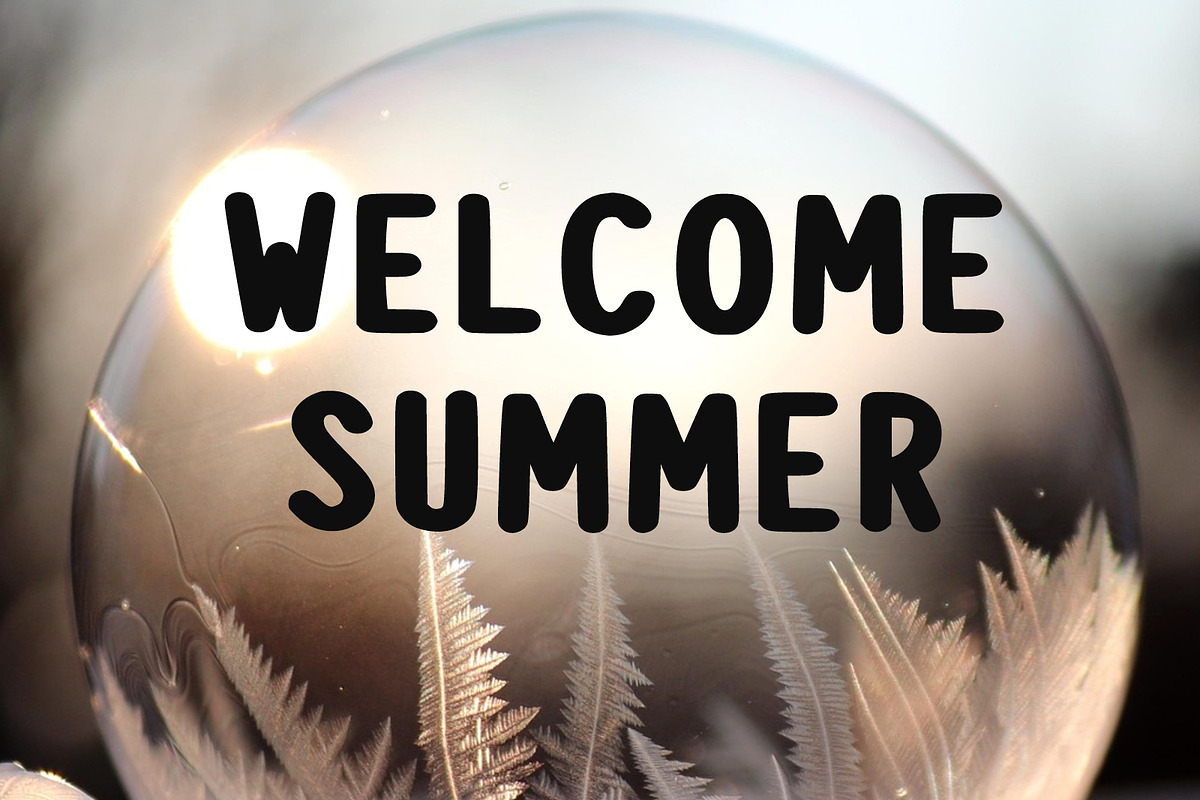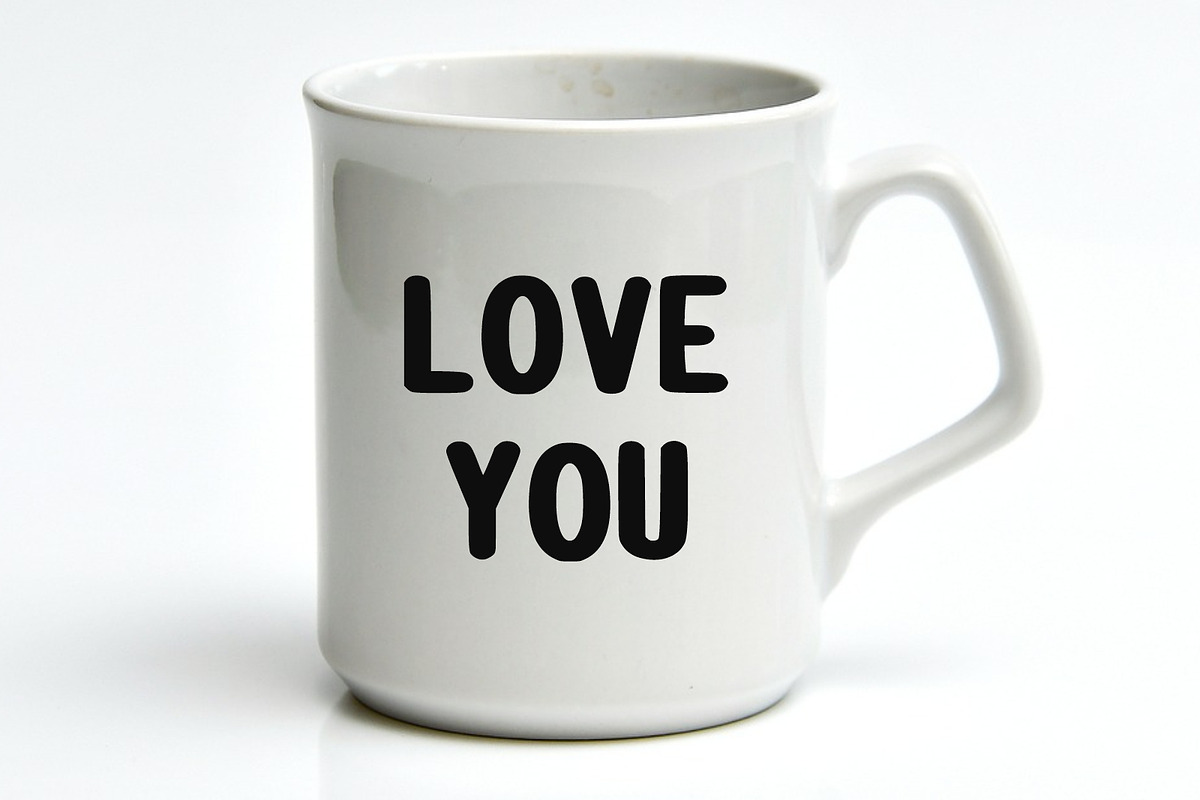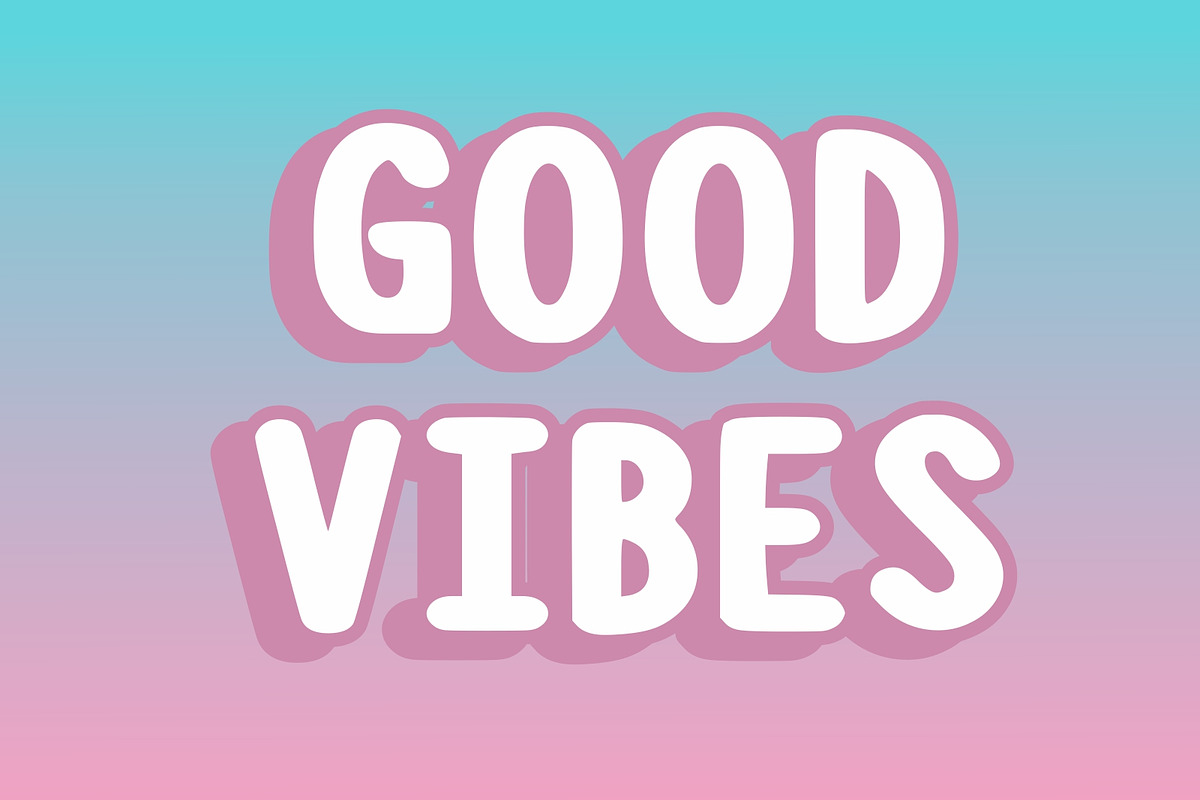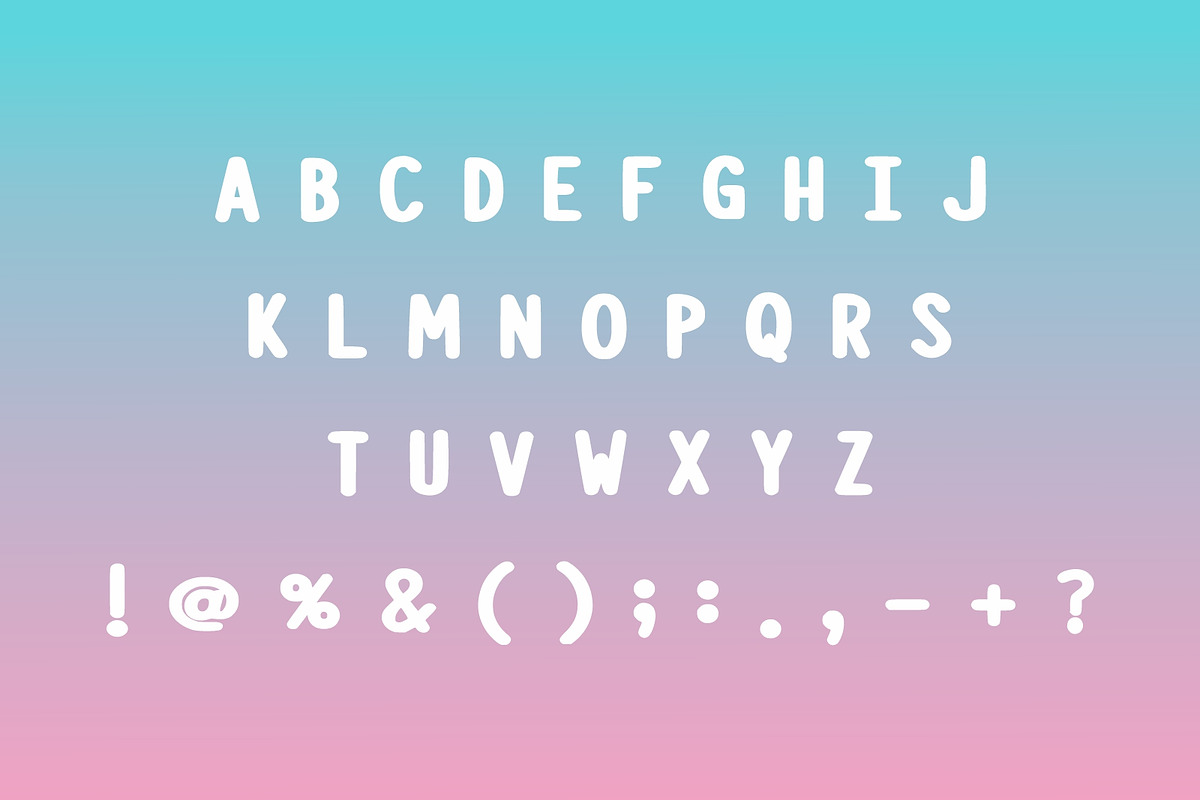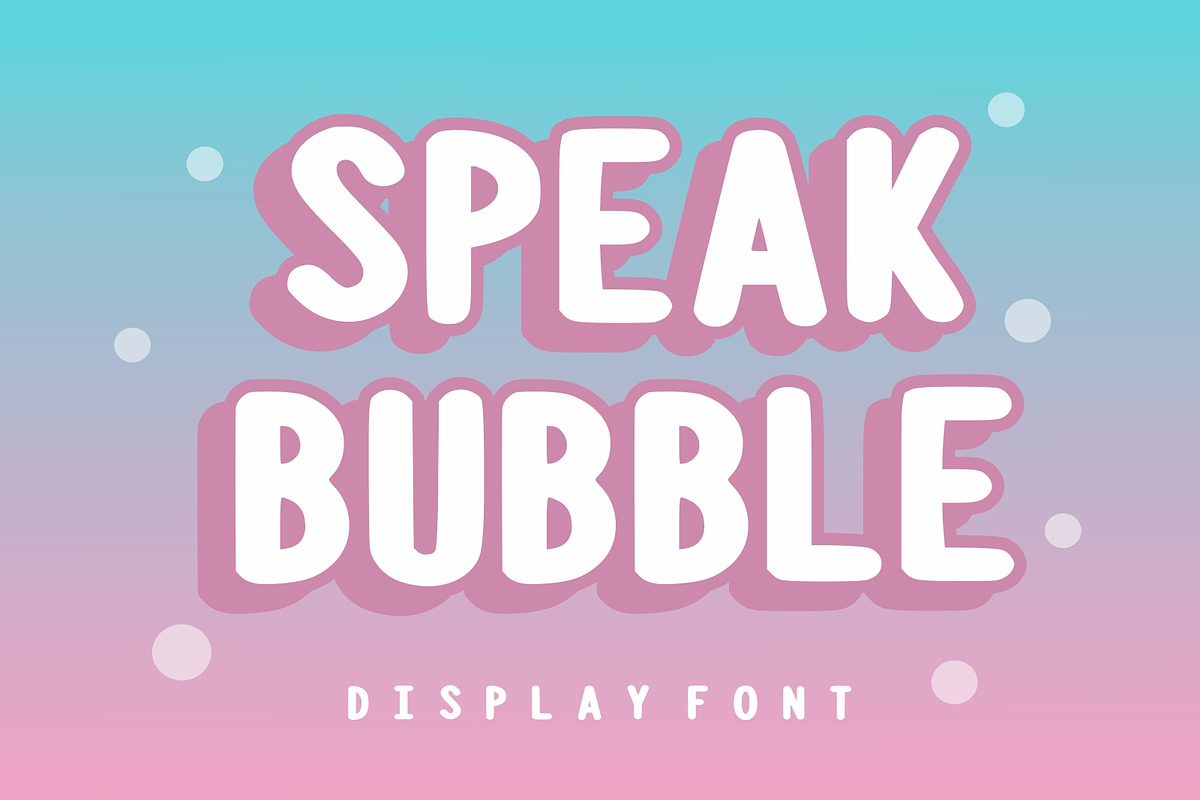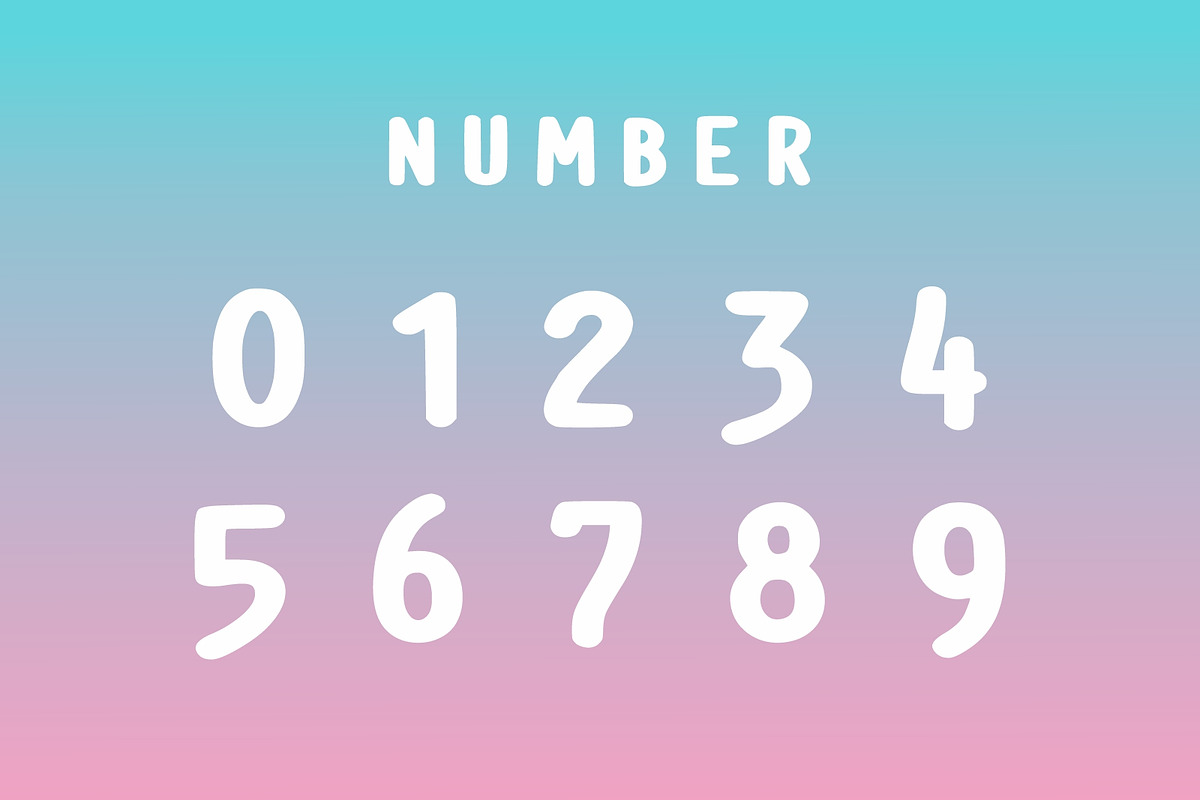
Speak Bubble
Speak Bubble is a fun and hand drawn type display font, reminiscent of colorful, It evokes a sense of nostalgia, perfect for back-to-school themes, birthday cards, children’s lettering, chalk-inspired designs, holiday greetings like Thanksgiving, craft ventures, kid-centered greeting cards, decorations, and craft projects.